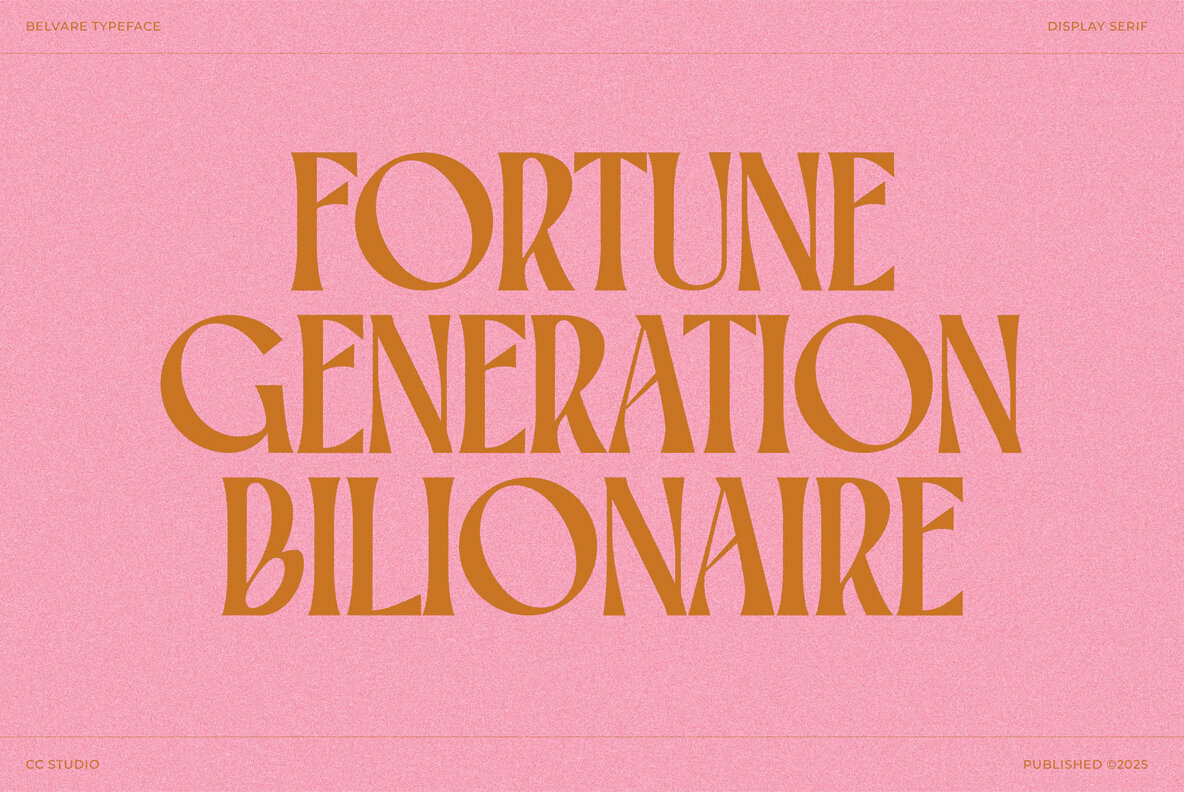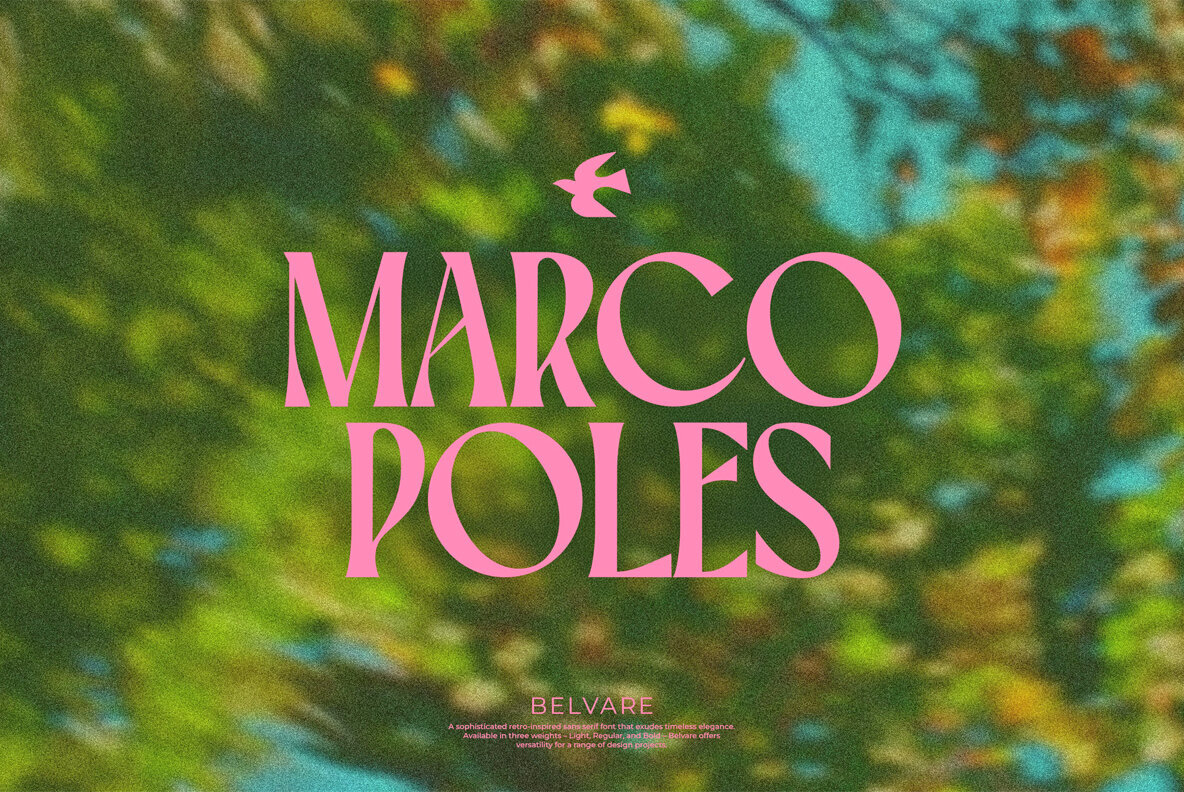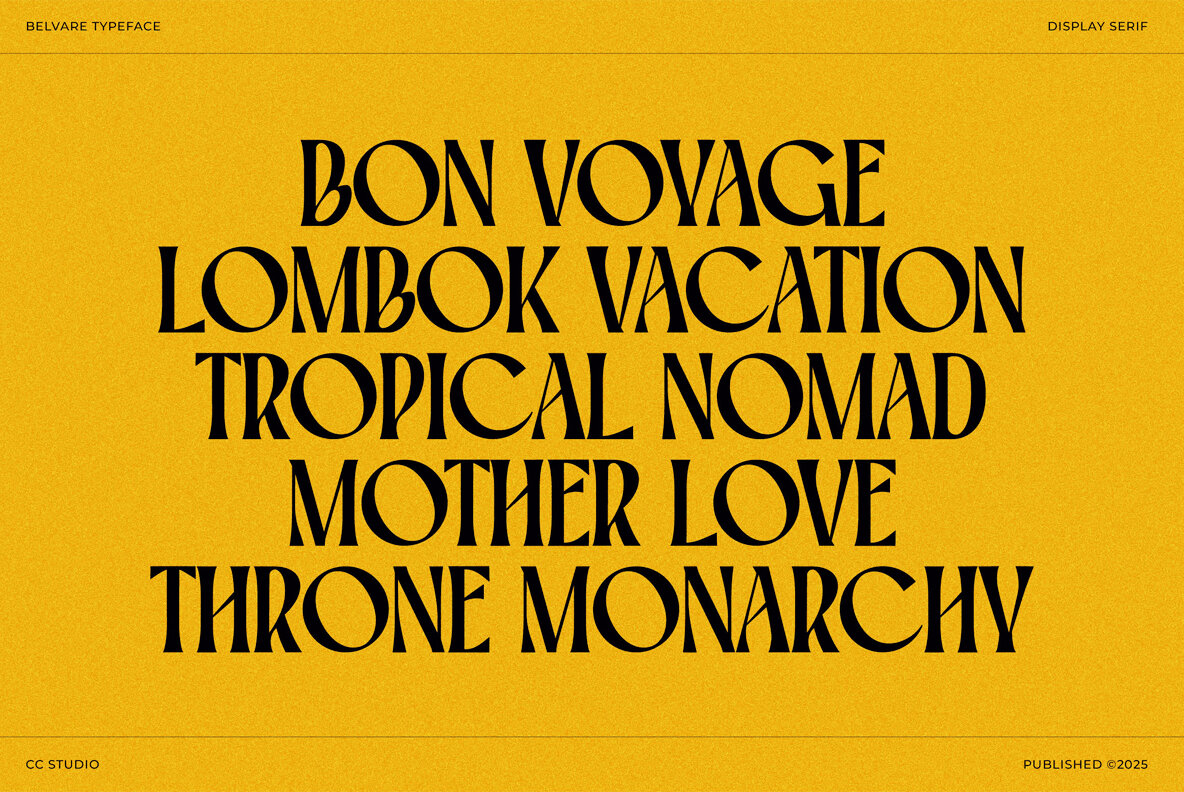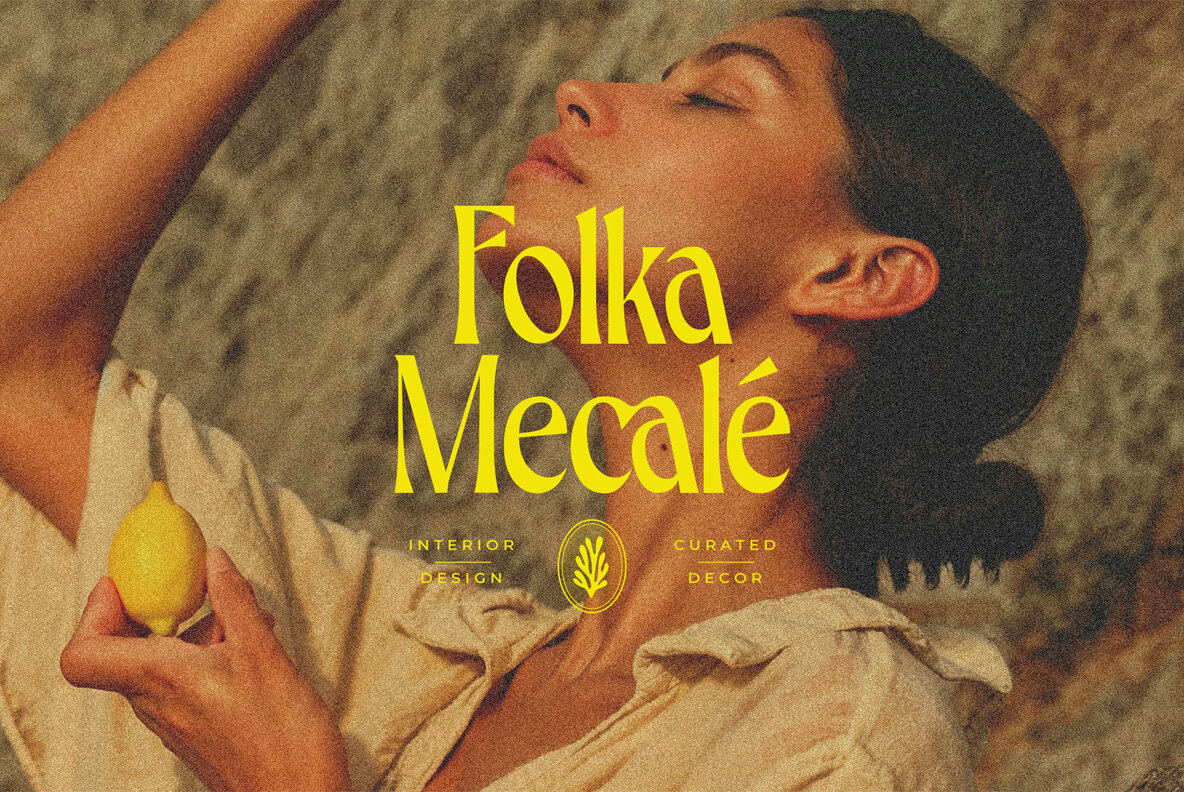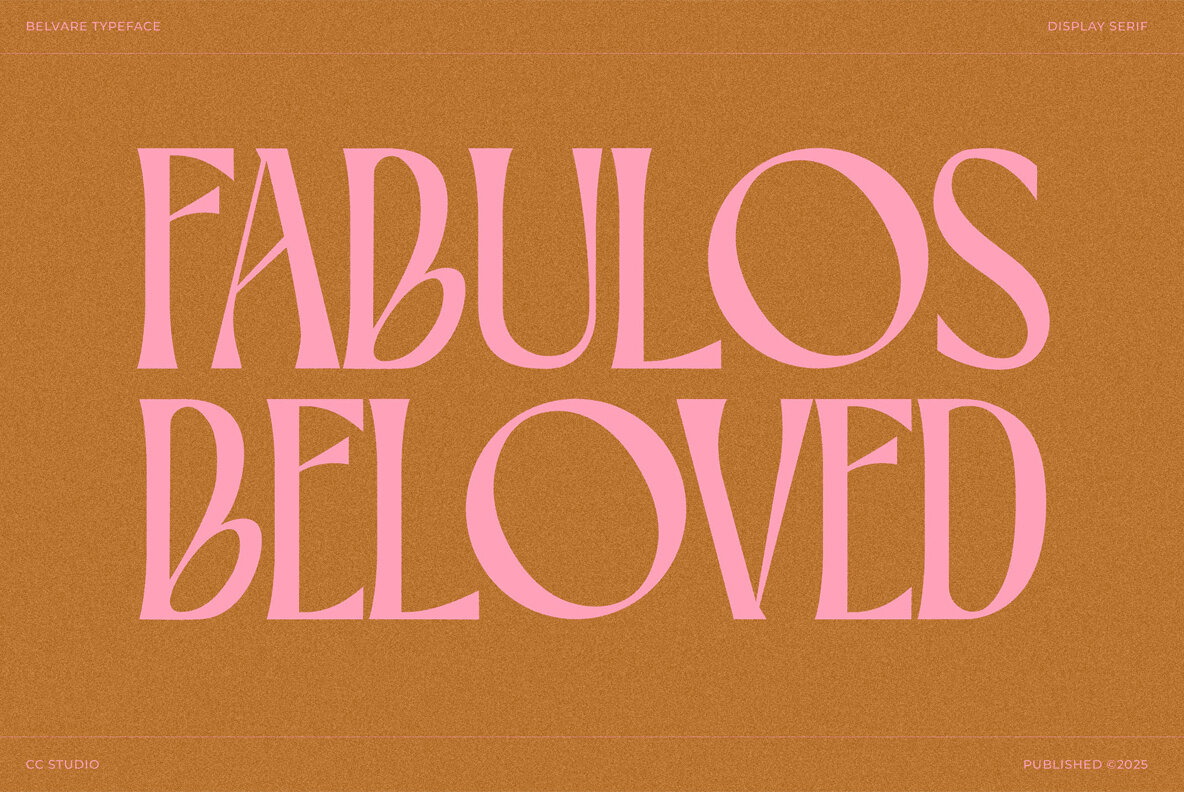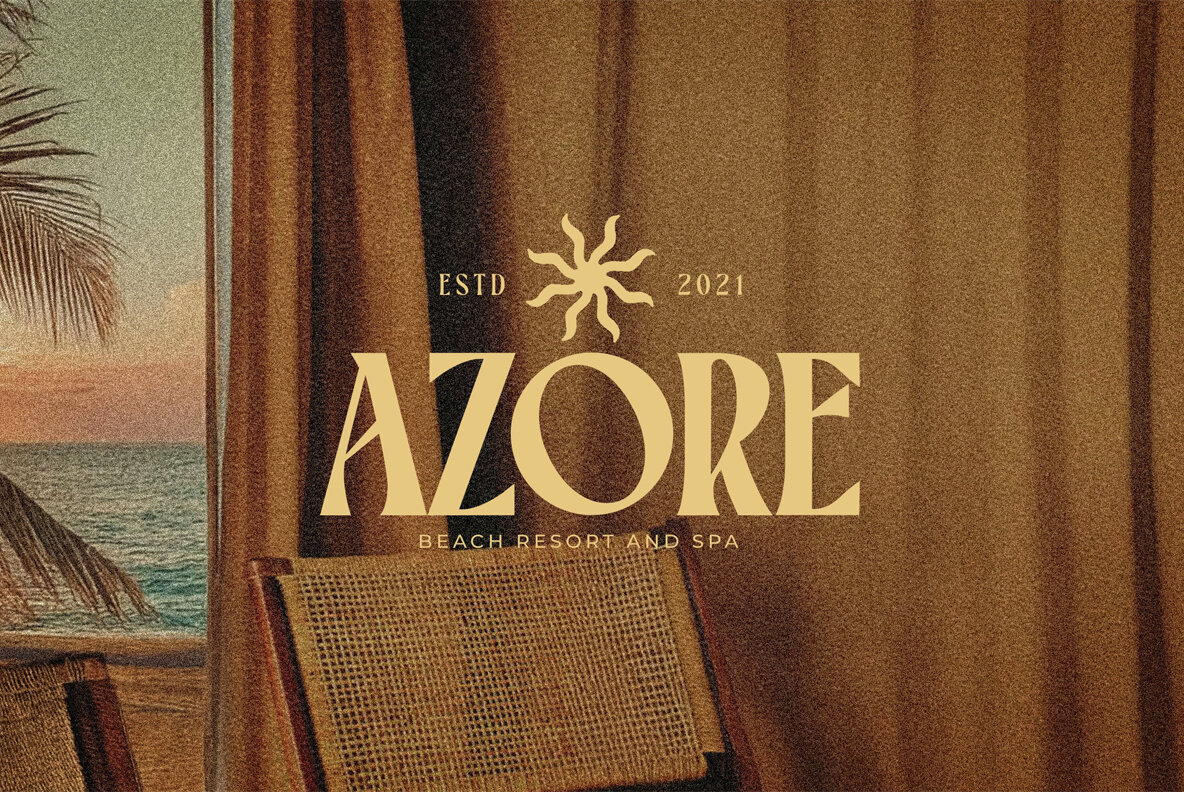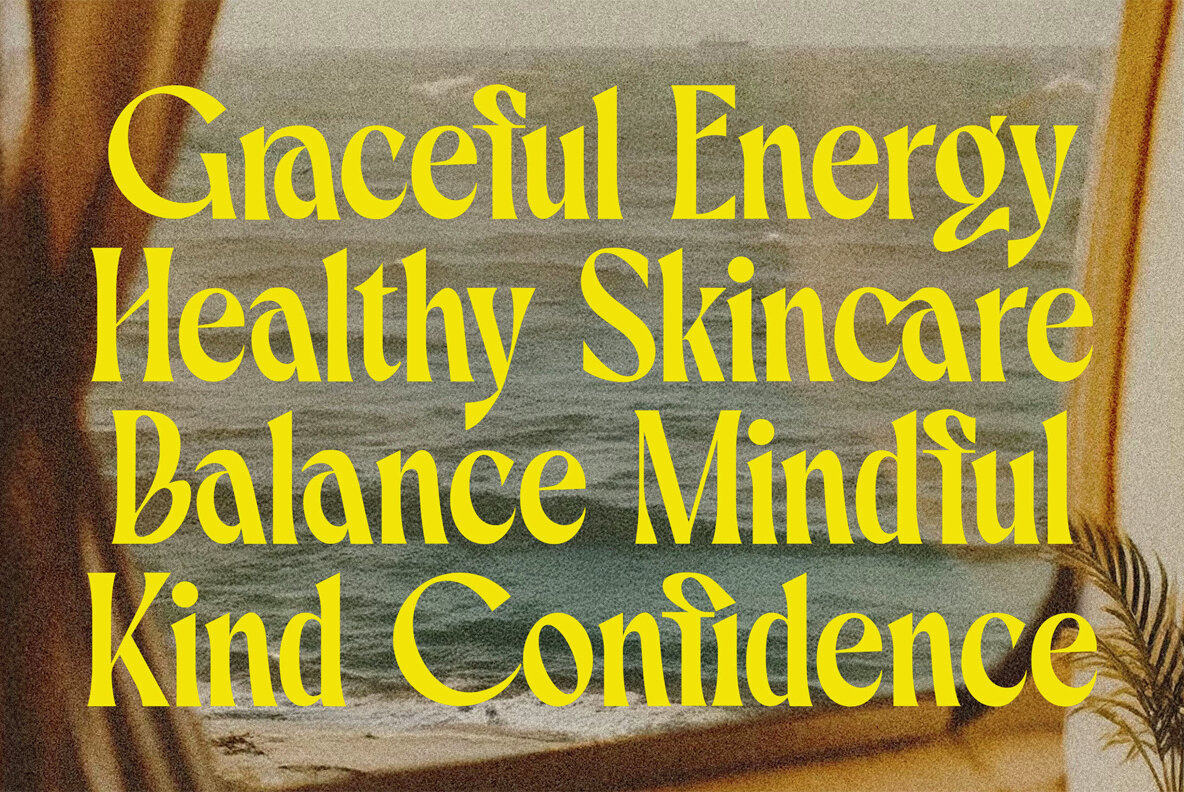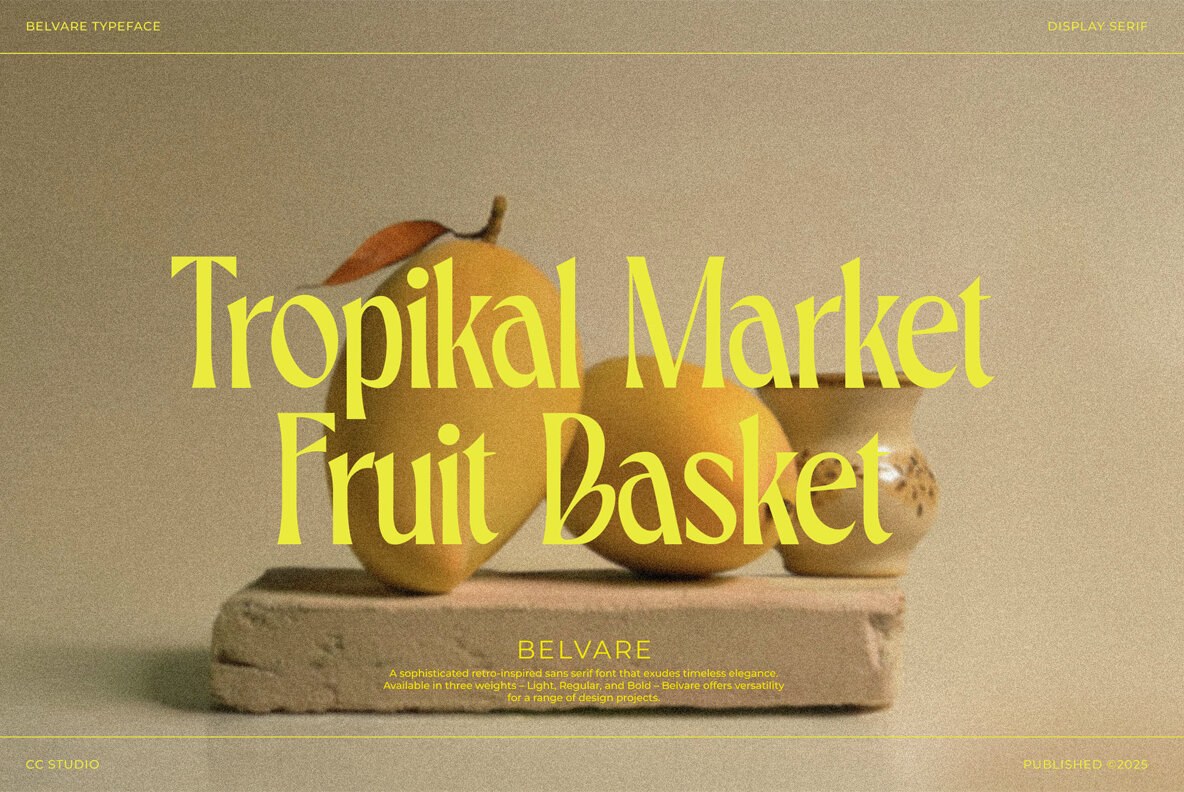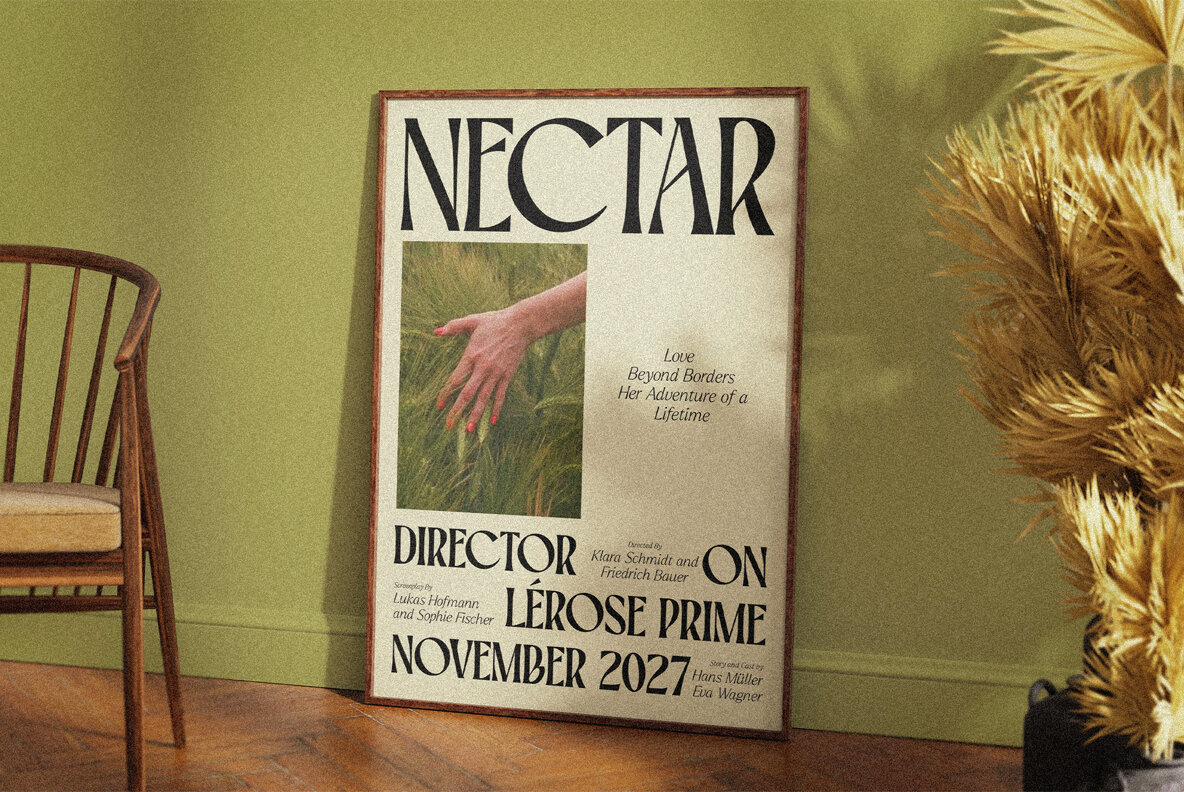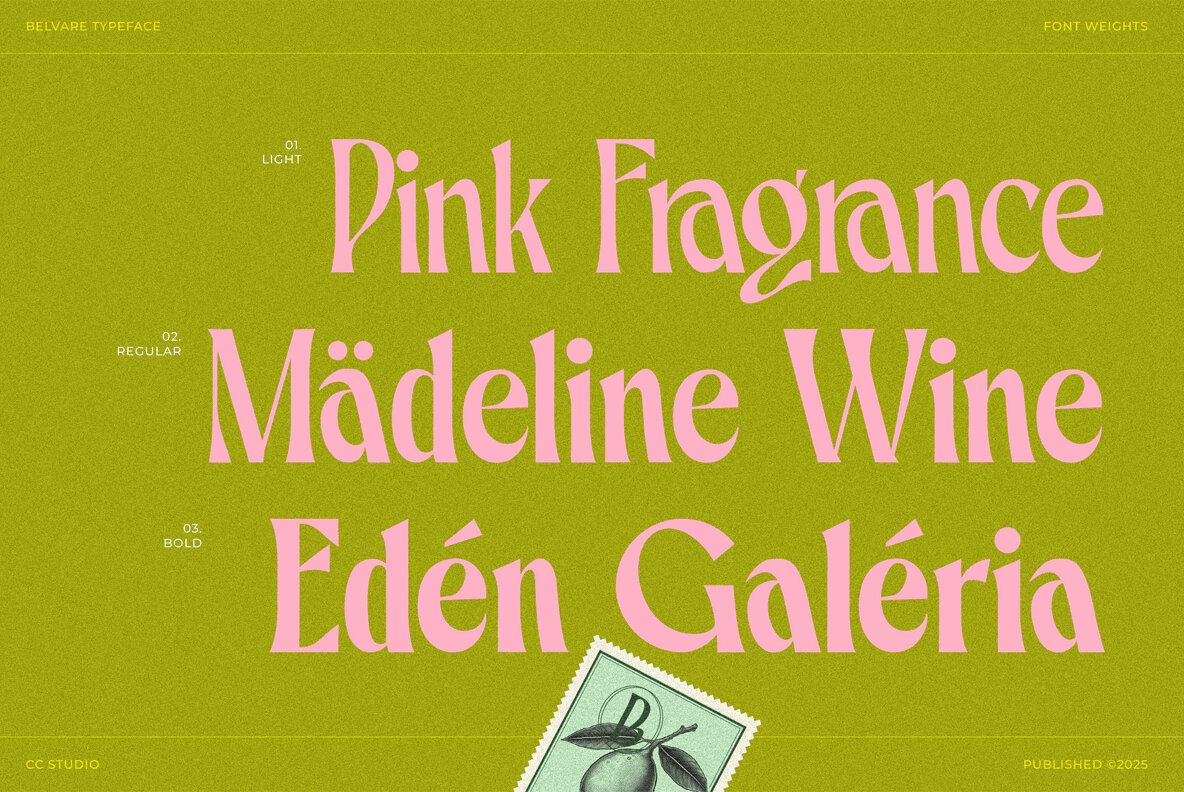
Belvare Font
Belvare is a sophisticated retro-inspired Serif font that exudes timeless elegance. Available in three weights – Light, Regular, and Bold – Belvare offers versatility for a range of design projects. Its rounded letter proportions create a friendly and approachable feel, while the condensed glyphs and distinctive large, rounded O and C characters add a touch of unique character. A carefully curated selection of alternates further enhances the font's rhythmic and dynamic personality. Belvare is perfectly suited for headlines, titles, branding, posters, and any project where a touch of retro charm and modern sensibility is desired.
Features:
• 3 Weights font
• Stylistic Alternates & Ligatures
• Multilingual